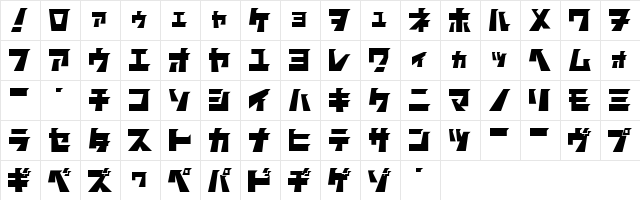
ComBattler Regular
Design Context for ComBattler Typeface
ComBattler has the no-nonsense character of military stencilling and tactical signage, projecting authority and directness.
Designed for tactical branding, military-inspired apparel, action game UI, and utility-focused signage.
Pro Tip: Use ComBattler at medium-to-large sizes where its utilitarian structure can be appreciated — the character detail gets lost at small sizes.